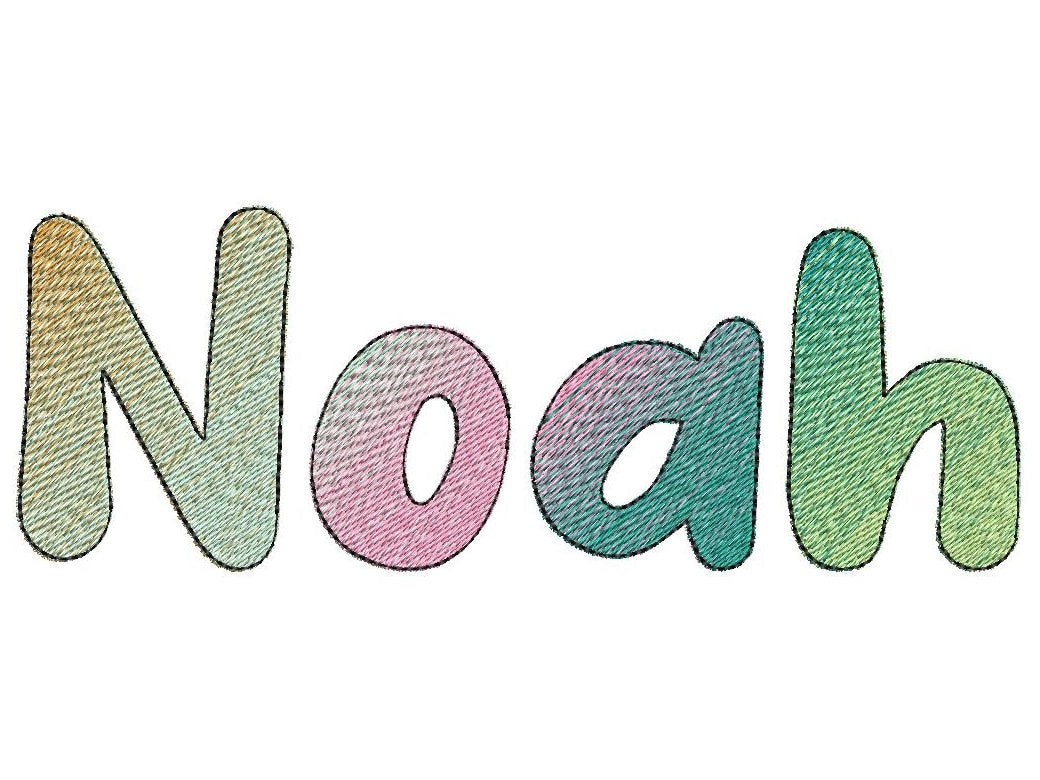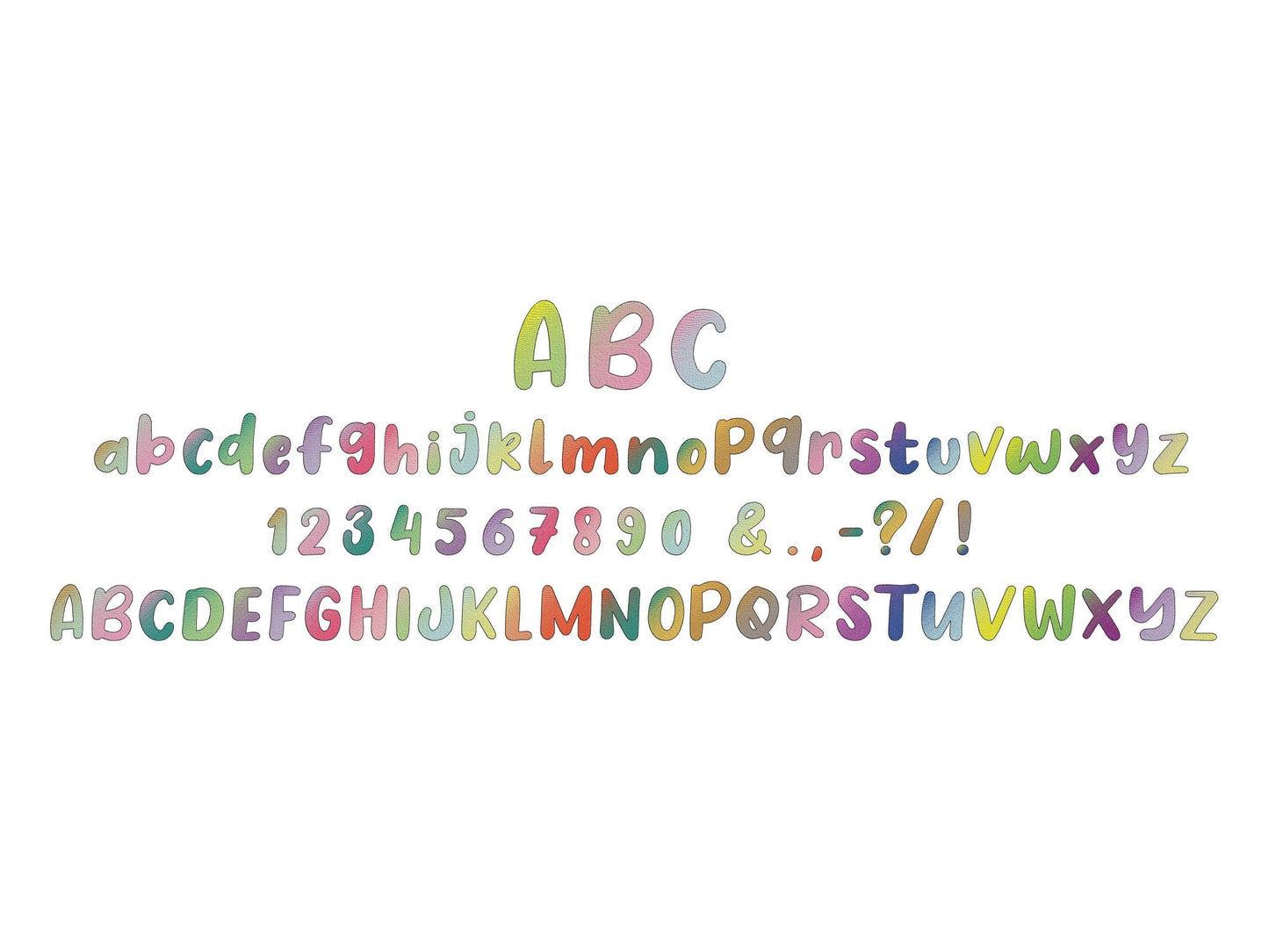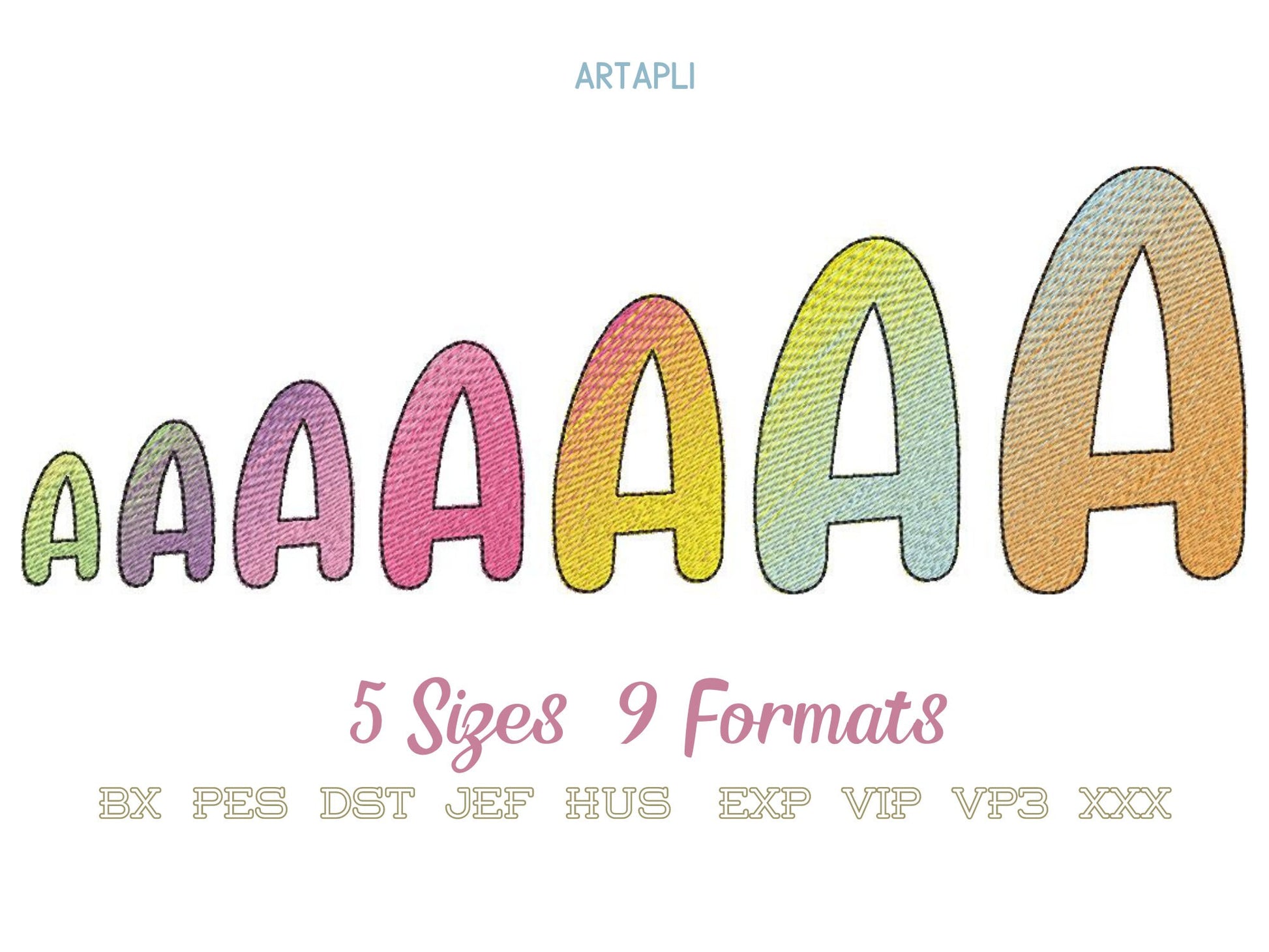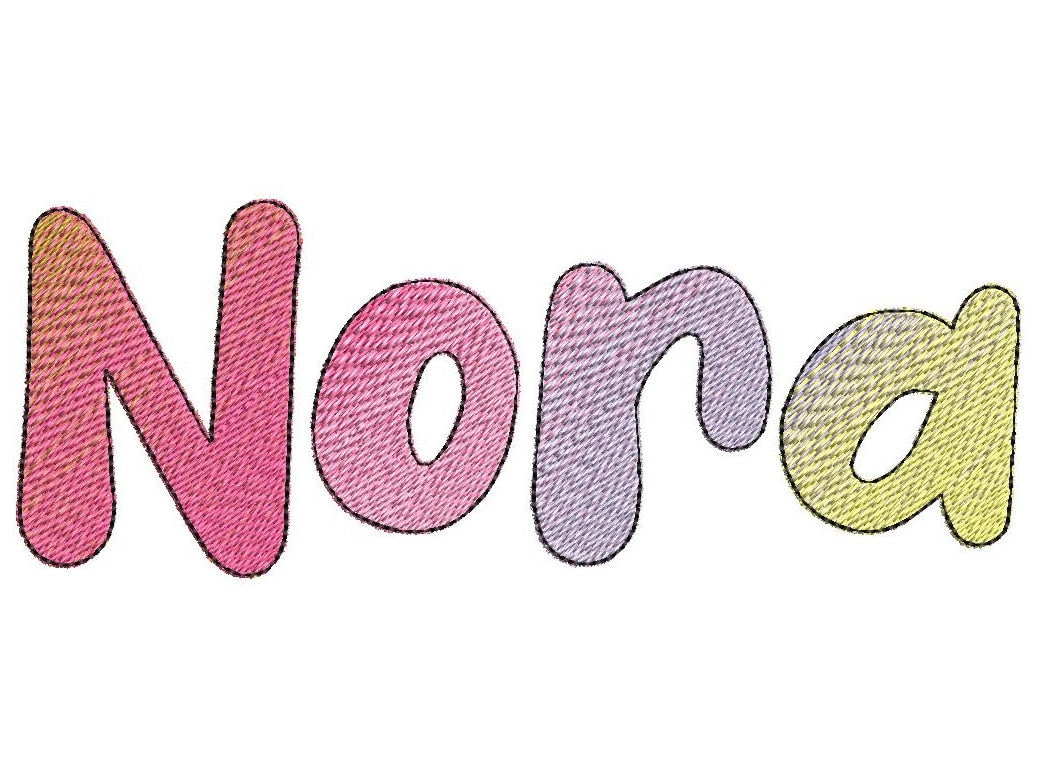
Iridescent 2-Color Ombre Gradient Kids Fun Font
Or click to open the linkA fun kids' script that looks iridescent, stitched with two ordinary thread colors. No special thread needed. Lovely for names, monograms and sayings.
Uppercase and lowercase letters, numbers 0 to 9 and punctuation. Seven sizes: 1.2, 1.5, 2, 2.3, 2.8, 3.3 and 4 inches. Each letter shifts from one color to the other, so the gradient comes from the stitching itself.
- Iridescent 2-color gradient script font
- Uppercase, lowercase, numbers 0 to 9, punctuation
- 7 sizes, 1.2 to 4 in